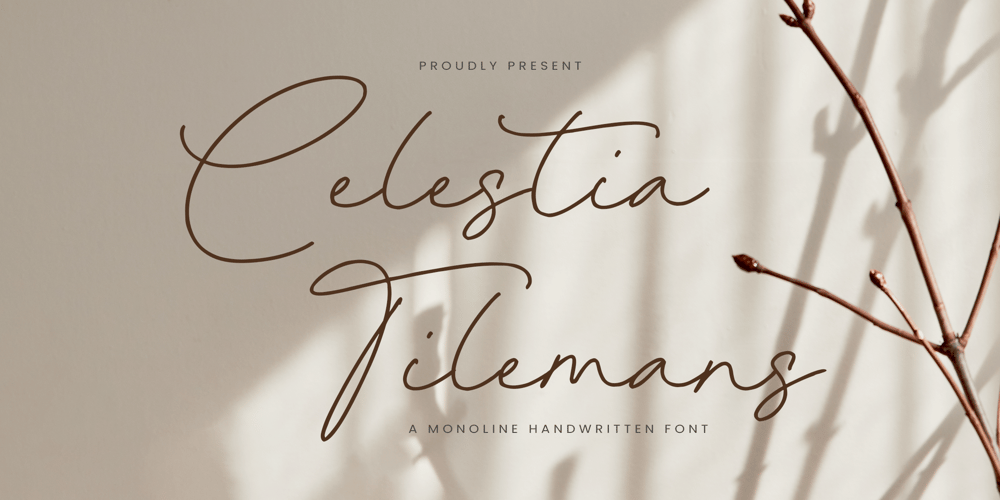
Celestia Tilemans Font Family was designed by Wara Sigit Tri Pamungkas and published by Timurtype. Celestia Tilemans contains 1 styles and family package options. Introduced by Timurtype Studio!Celestia Tilemans is a Monoline Handwritten Font This font is a elegant monoline handwritten font that exudes a graceful charm. With its smooth, continuous lines and artistic flair, it captures a modern yet timeless essence. Perfect for a variety of applications from branding to wedding invitations. Celestia Tilemans adds a luxury touch, making any text feel warm and inviting. Its fluid strokes and distinctive character bring a unique sophistication, making it a standout choice for creative projects.Celestia Tilemans Font also supports multilingualismEnhance your designs with our original fonts, feel free to comment or provide feedback, Enjoy the fonts 😊Thank You